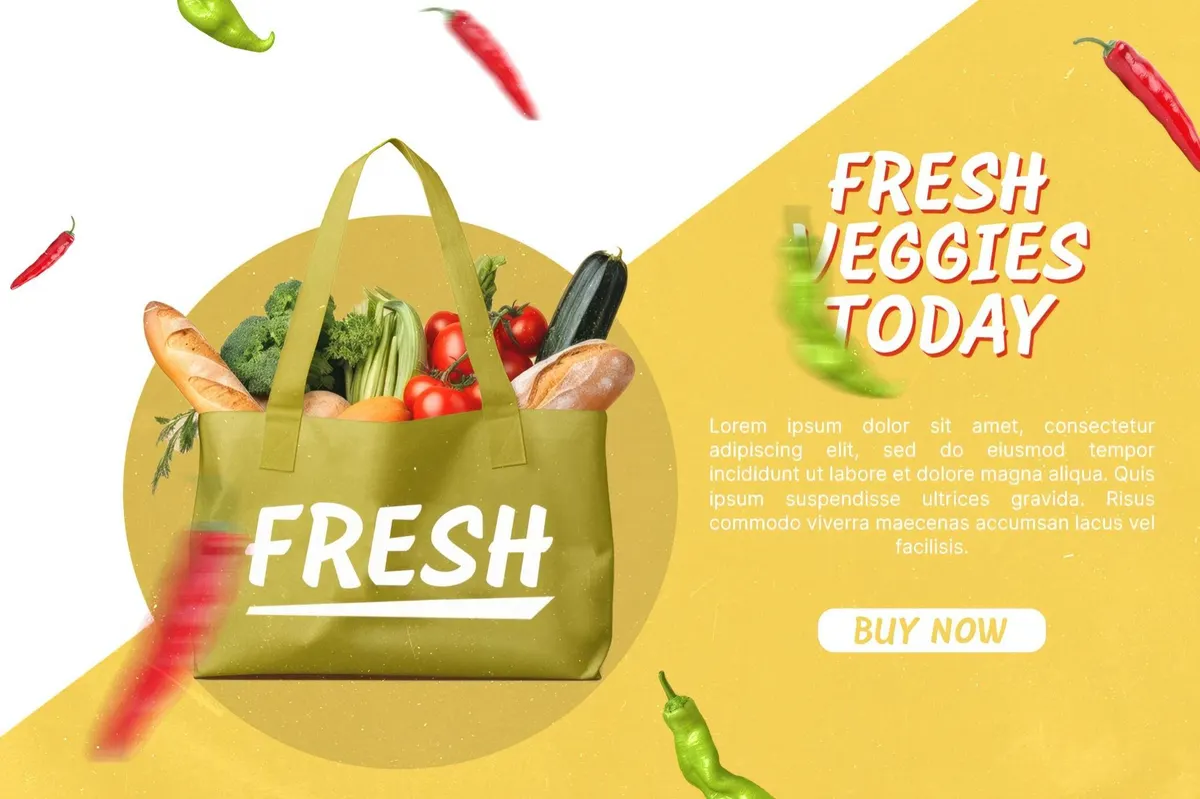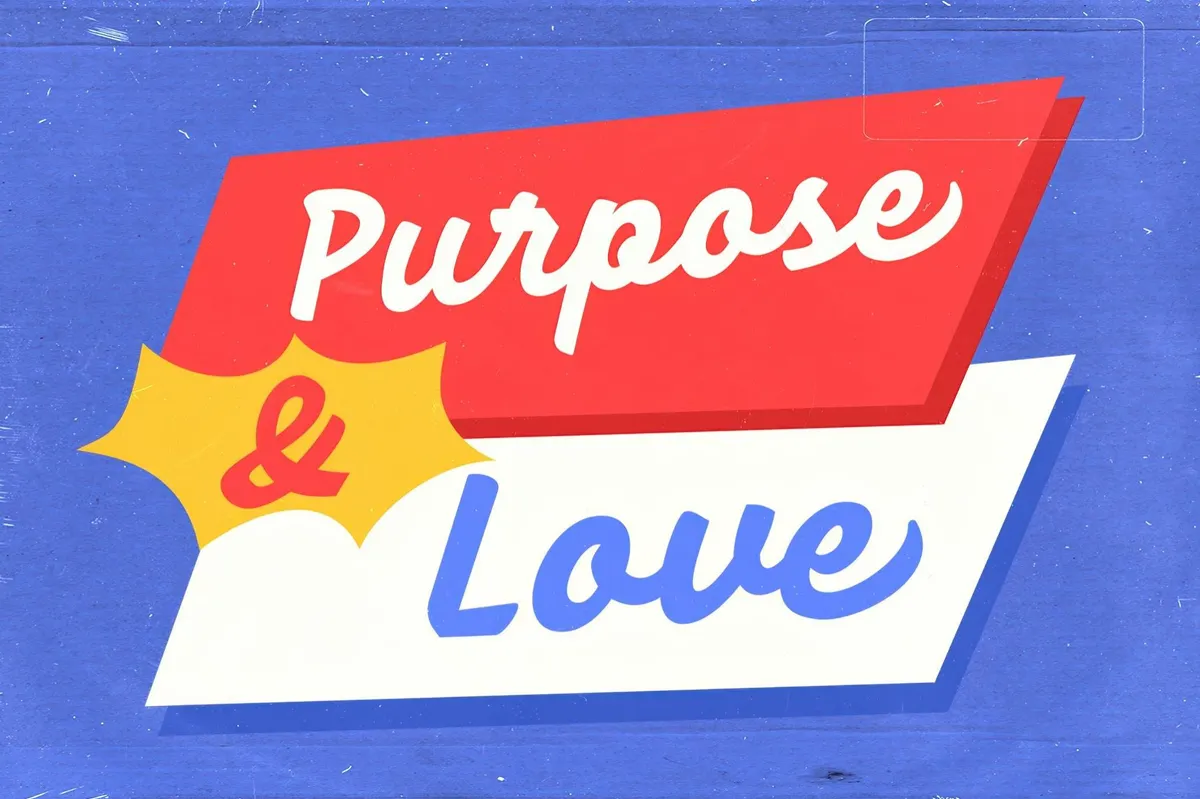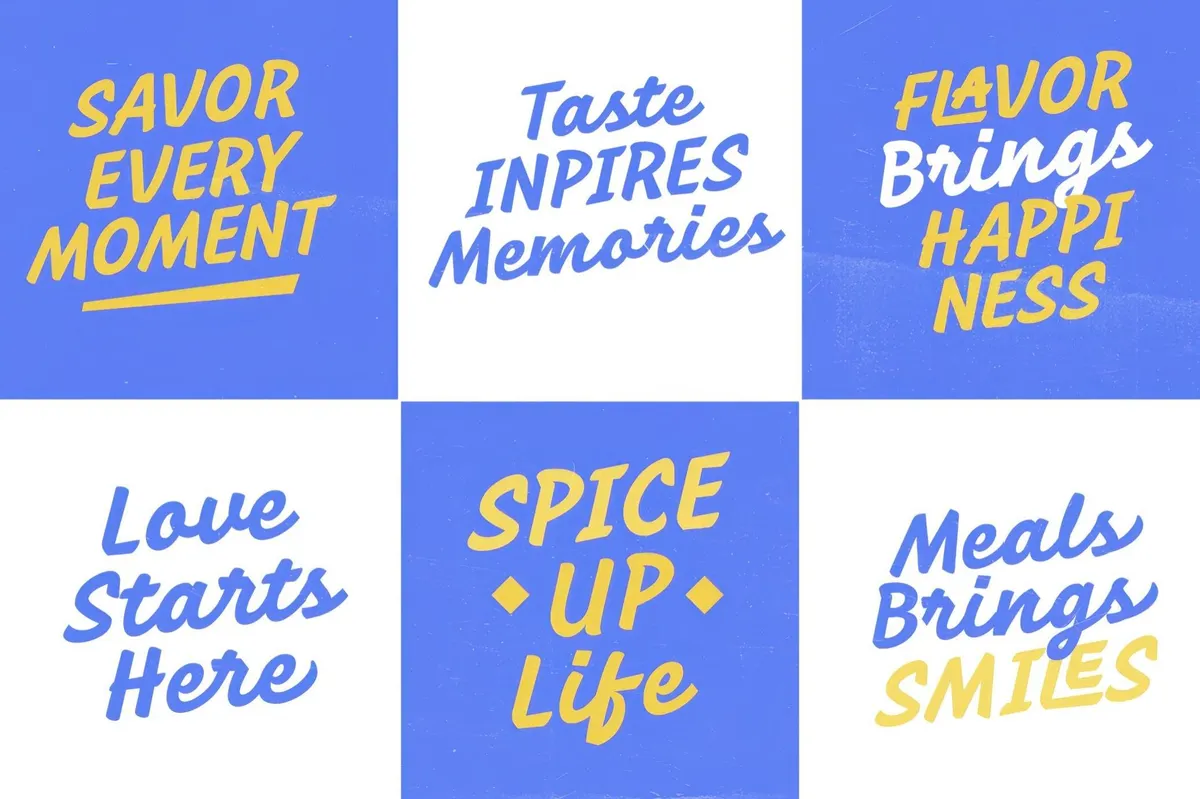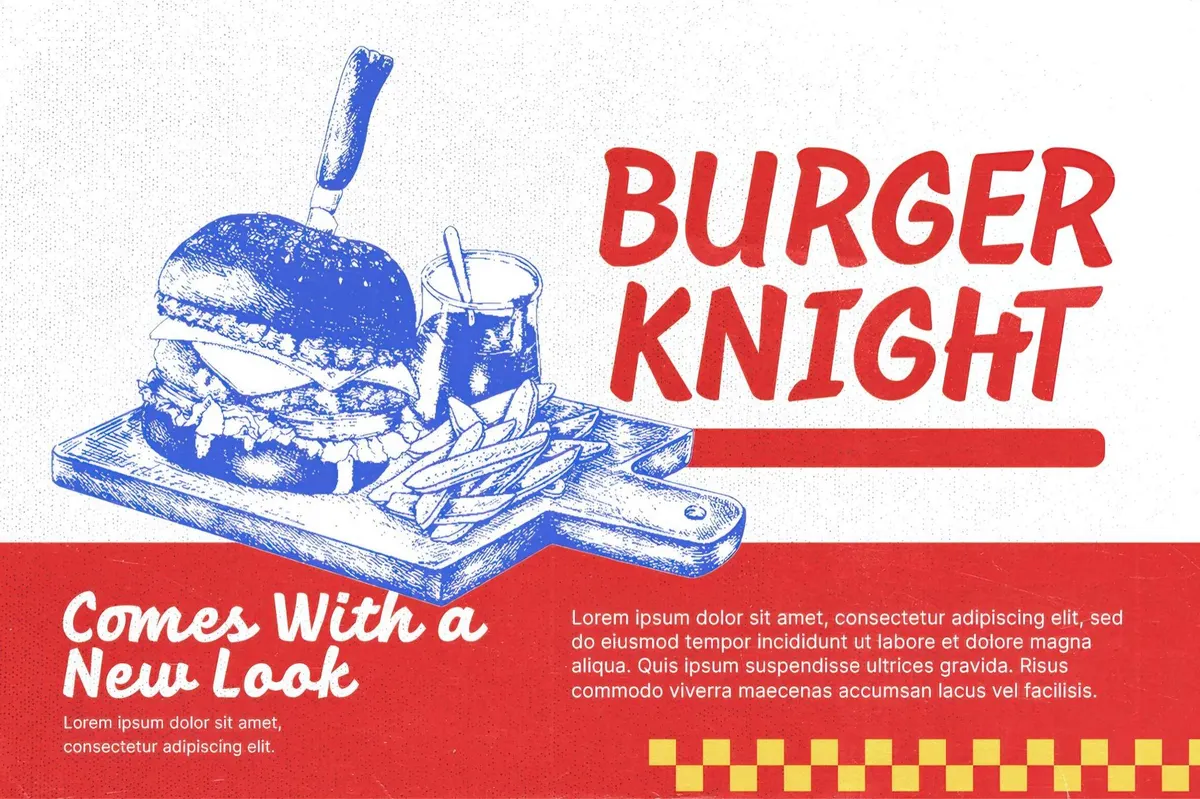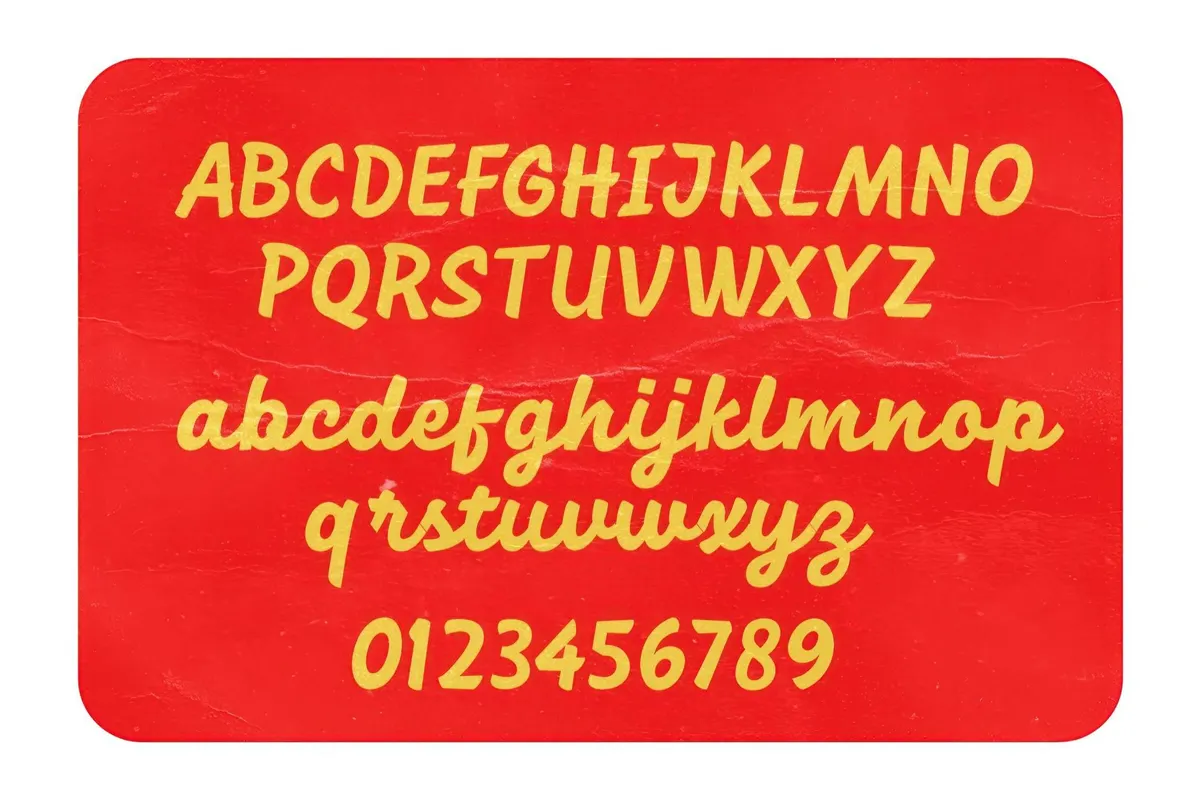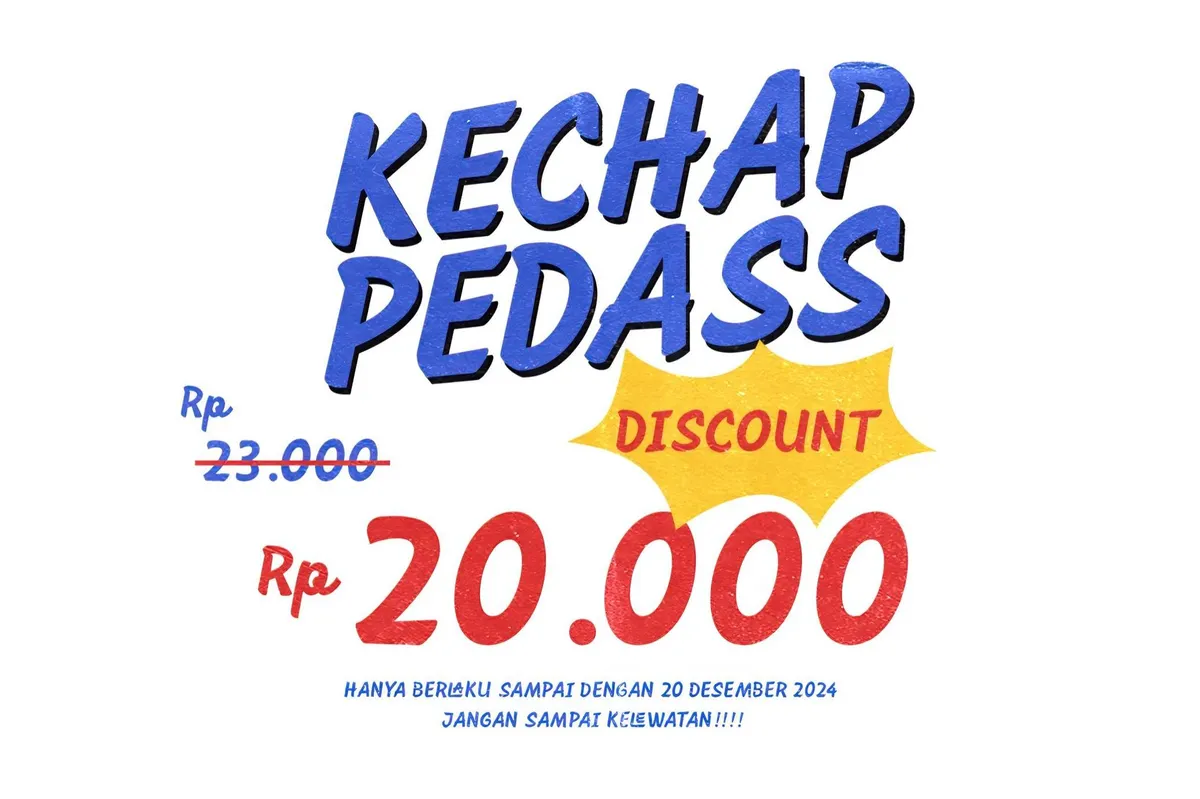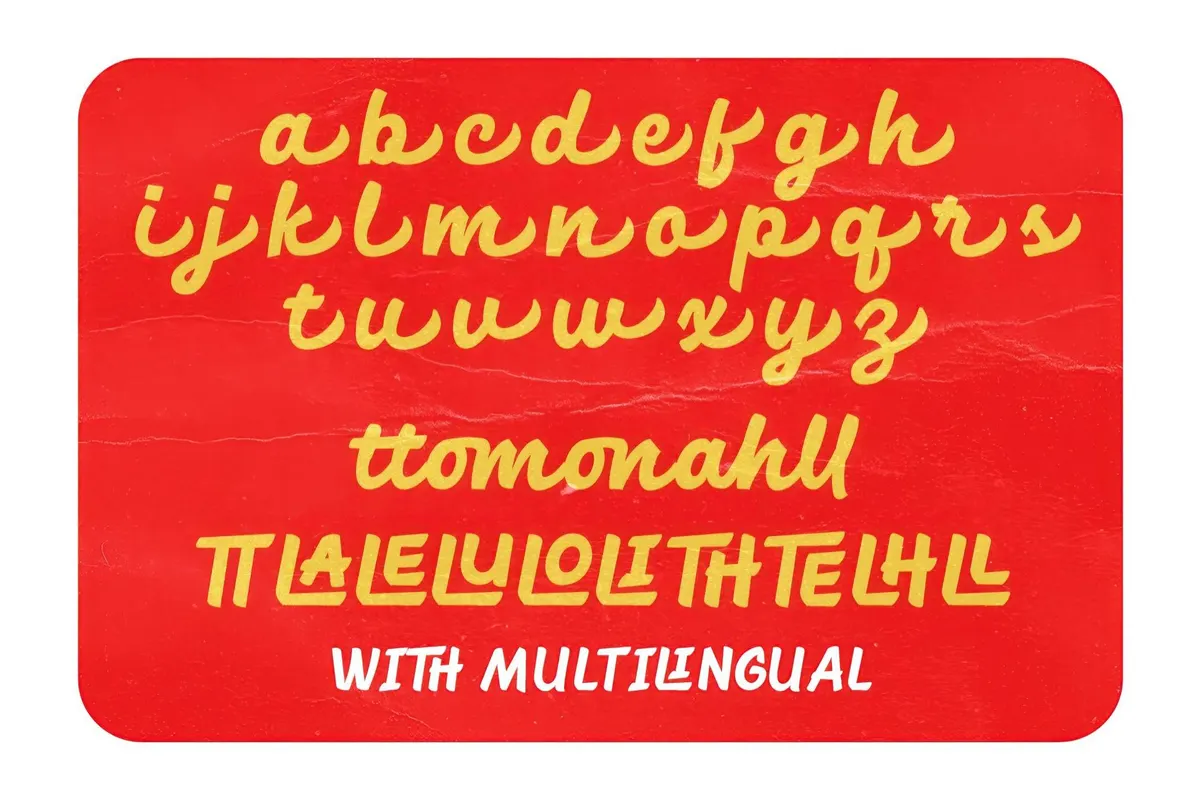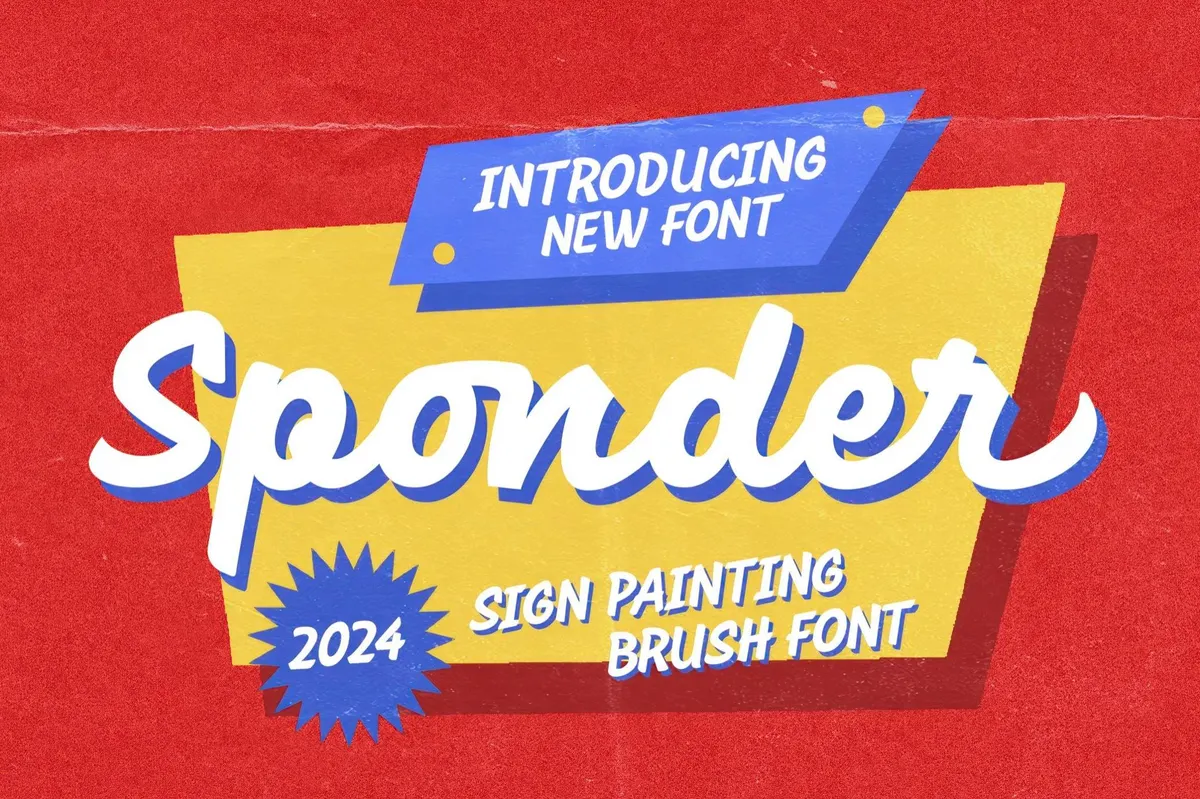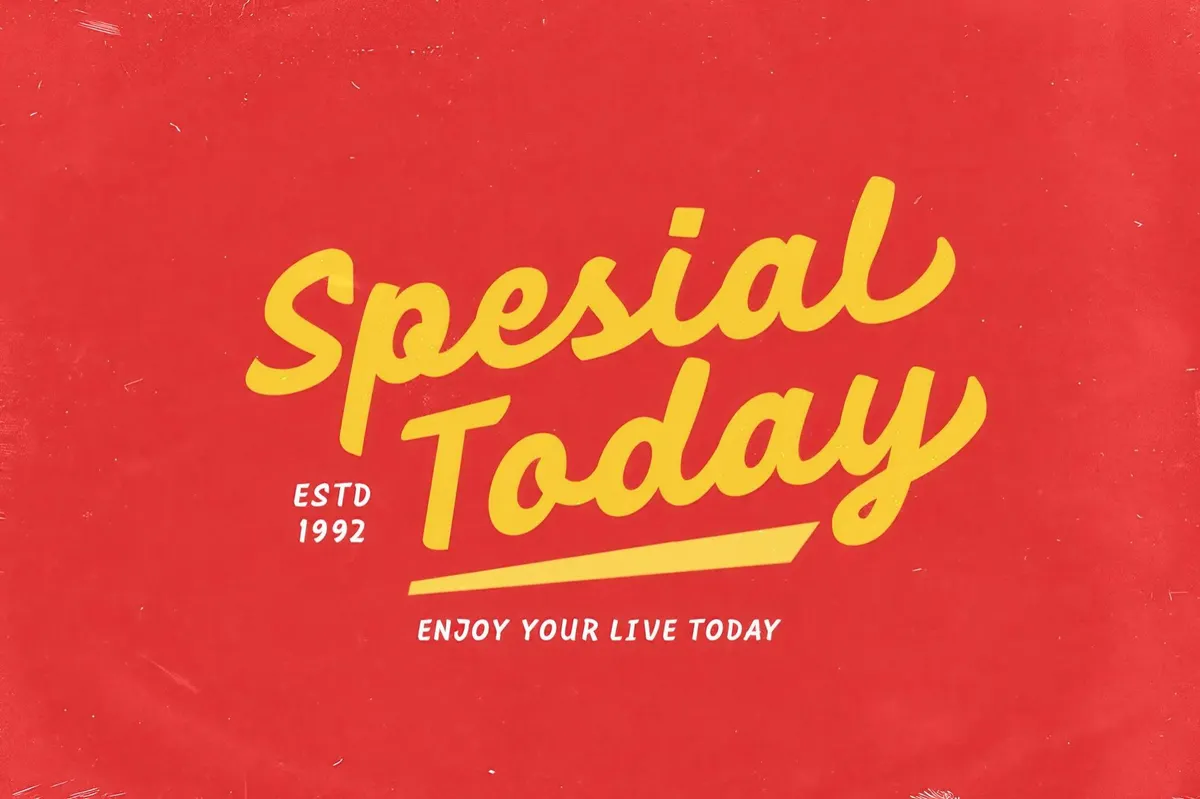
Sponder — Sign Painting Font
Sponder feels like a fresh coat of paint on a sunny old diner sign. It's bold, breezy, and saying hi straight out of the golden age of lettering. This script brush font nails the retro signage aesthetic, with smooth curves, thick downstrokes, and pretty much flair to make the words pop. Uppercase and lowercase characters work well independently or together, giving you flexibility for slogans, vintage-style logos, branding, and packaging designs. Ligatures and alternates offer extra spice, while multilingual support ensures your message travels far and wide.